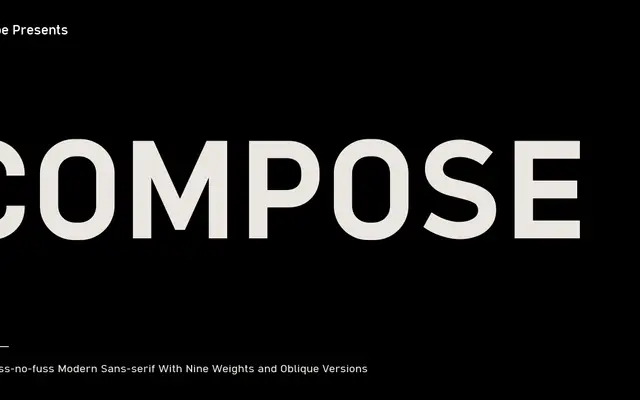
Compose
A clean, minimal geometric sans in nine weights with obliques, Latin Extended and Cyrillic coverage, and alternates for 'a' and 'y'.
The family runs from Thin to Black, each with a matching oblique, giving eighteen styles in total. A higher x-height aids legibility at smaller sizes, and OpenType features include stylistic alternates, circled numerals and arrows. Suited to editorial, signage, web and corporate identity work.
Clean, minimal letterforms with a high x-height and geometric character suggest a geometric sans classification; the double-storey 'a' alternate and oblique rather than true italic style support this reading.